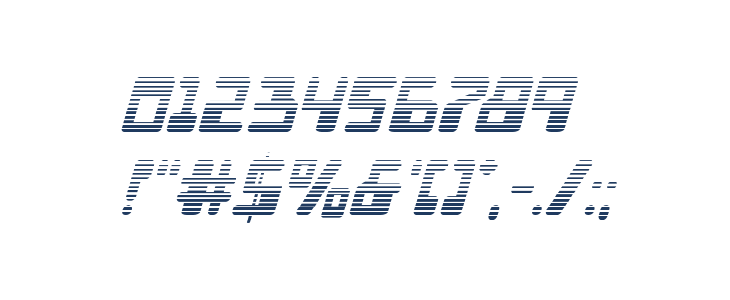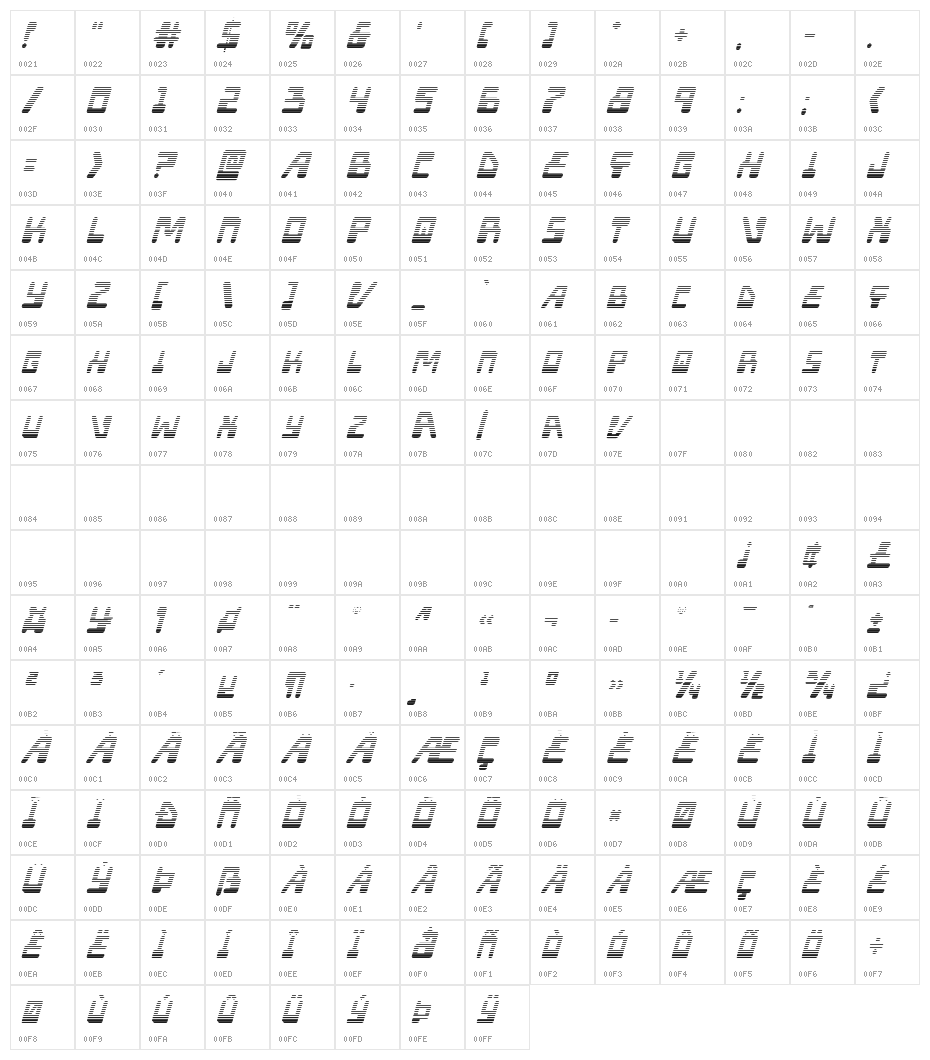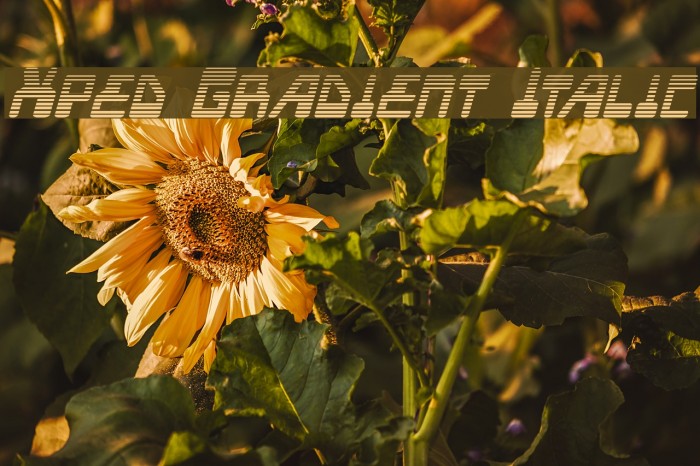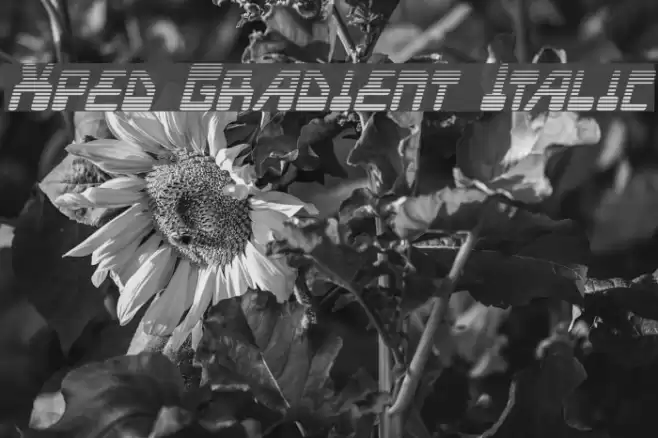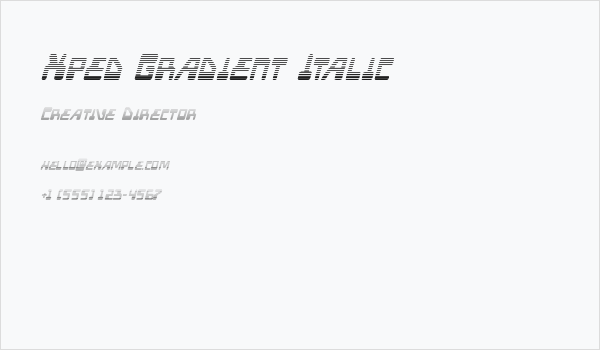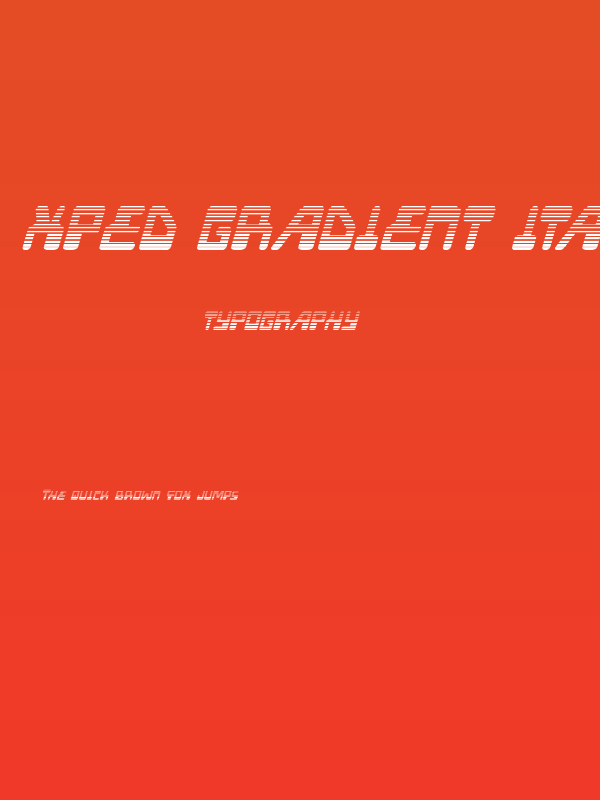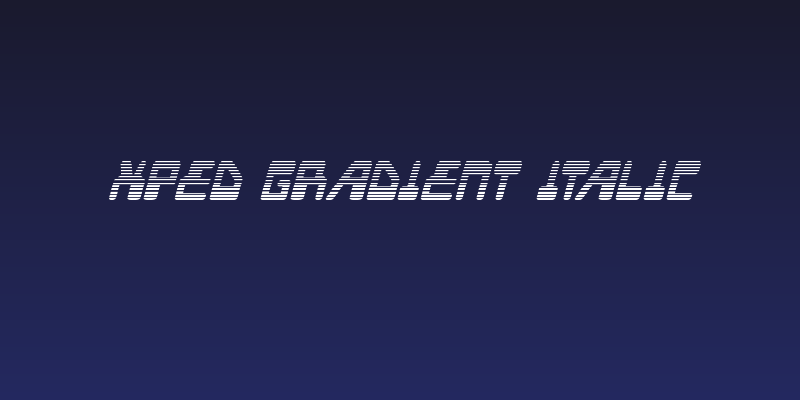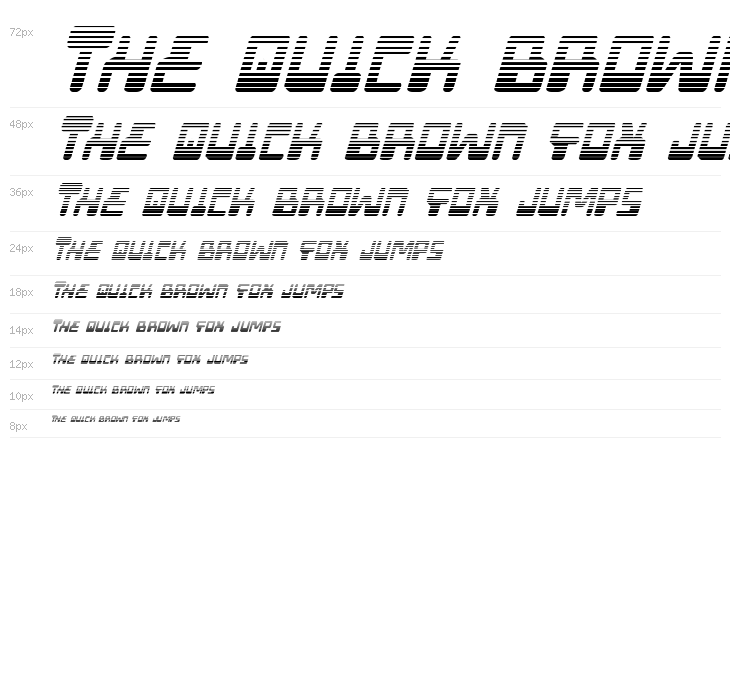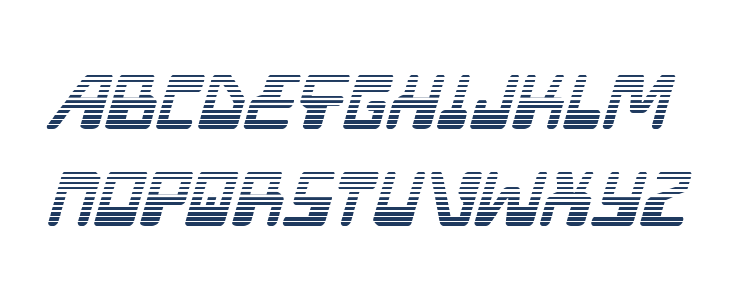
Xped Gradient Italic Font
Xped Gradient Italic Description
This font features a unique, futuristic style with a gradient effect that gives the impression of motion or speed. The characters are italicized, adding a dynamic slant to the overall appearance. Each letter and number is composed of horizontal lines that create a striped pattern, enhancing the sense of movement. The design is bold and eye-catching, making it suitable for projects that require a modern and energetic look. The spacing between characters is relatively tight, which contributes to the compact and cohesive feel of the text. This font is particularly effective for headlines, logos, and other display purposes where a striking and contemporary aesthetic is desired.
| Proposed Projects | Ideal for use in technology branding, sports team logos, futuristic posters, and video game titles. |